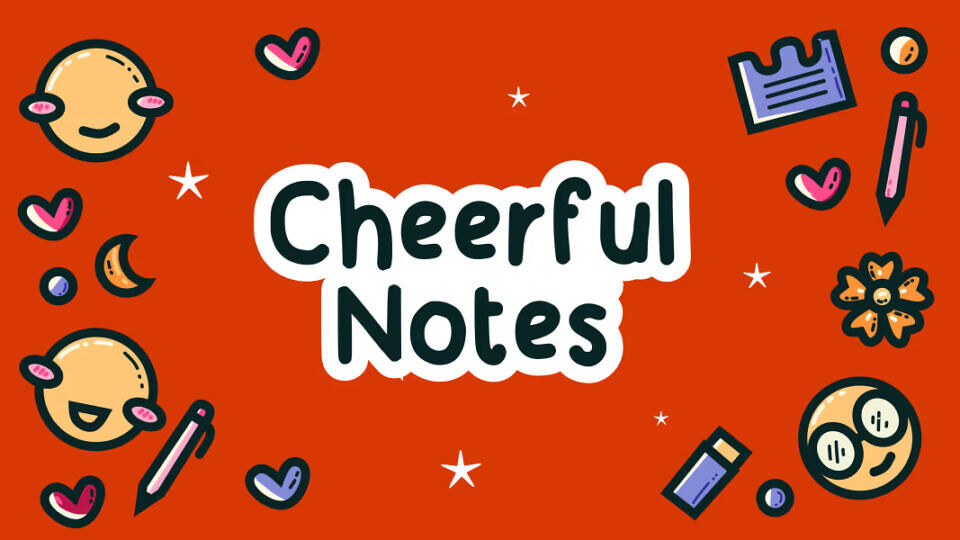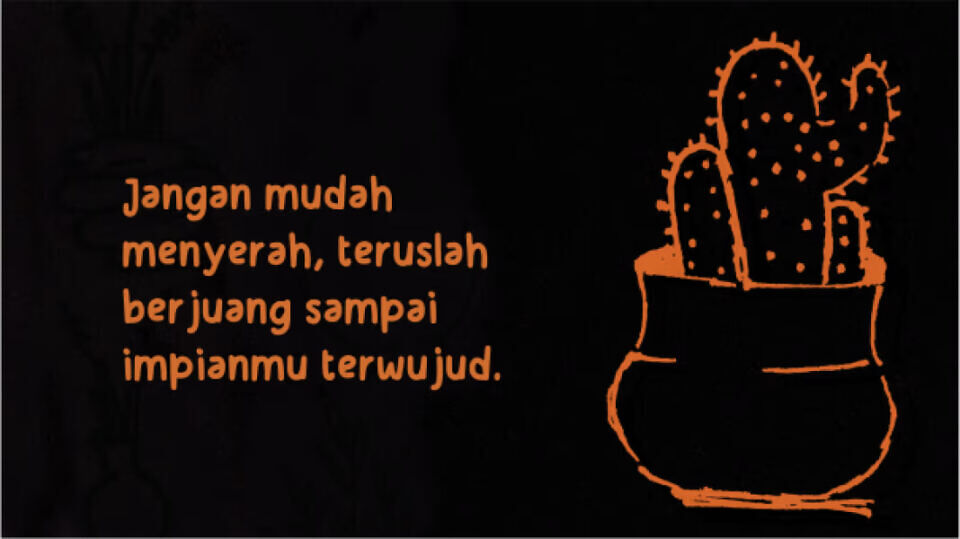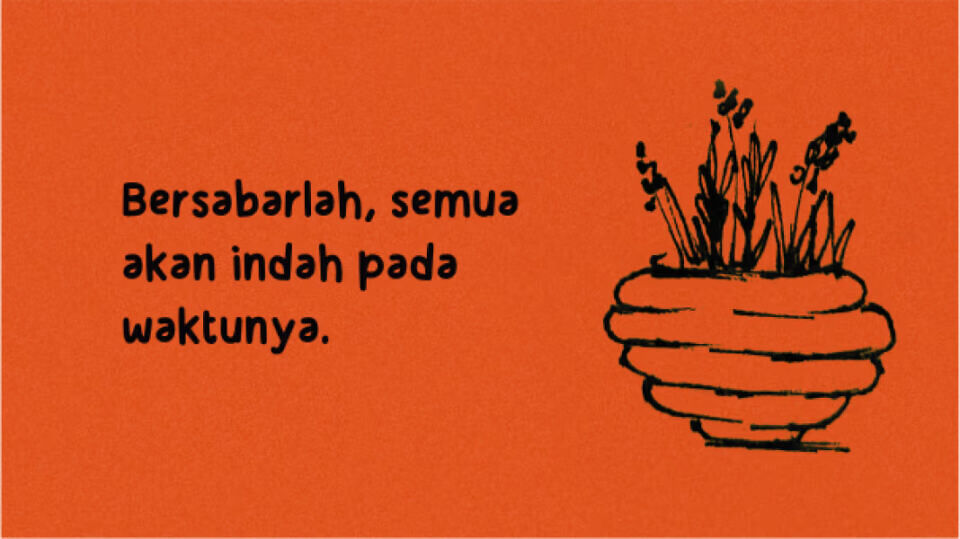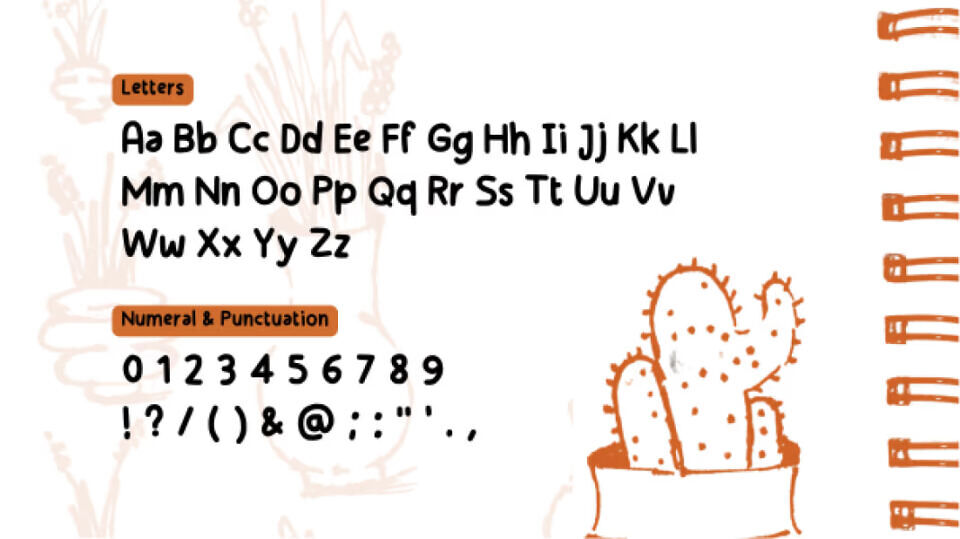
Cheerful Notes Font is a playful handwritten typeface with a warm, friendly feel. Its casual strokes and charming notebook-inspired style make it perfect for school projects, planners, greeting cards, social media graphics, children’s designs, and creative branding.
Created by Indah Riani, the font brings a cheerful and personal touch to any project while remaining easy to read and visually inviting.